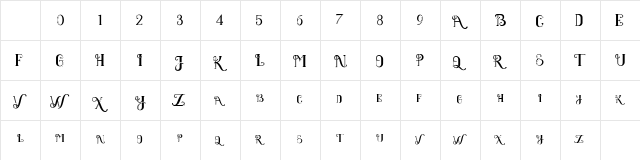
Complete Black Clover Display Regular glyph index. Displaying only characters natively supported by Black Clover Display Regular font.
Black Clover Display is built around its visual character rather than neutral utility - its distinctive forms are designed to make an impression at display sizes.
Font Pairing: Pair with a clean neutral sans-serif for body copy to let Black Clover Display's character lead without overwhelming the composition.
Pro Tip: Use Black Clover Display exclusively at display sizes - it was designed to be seen, not read at length. Let a neutral companion handle body copy.